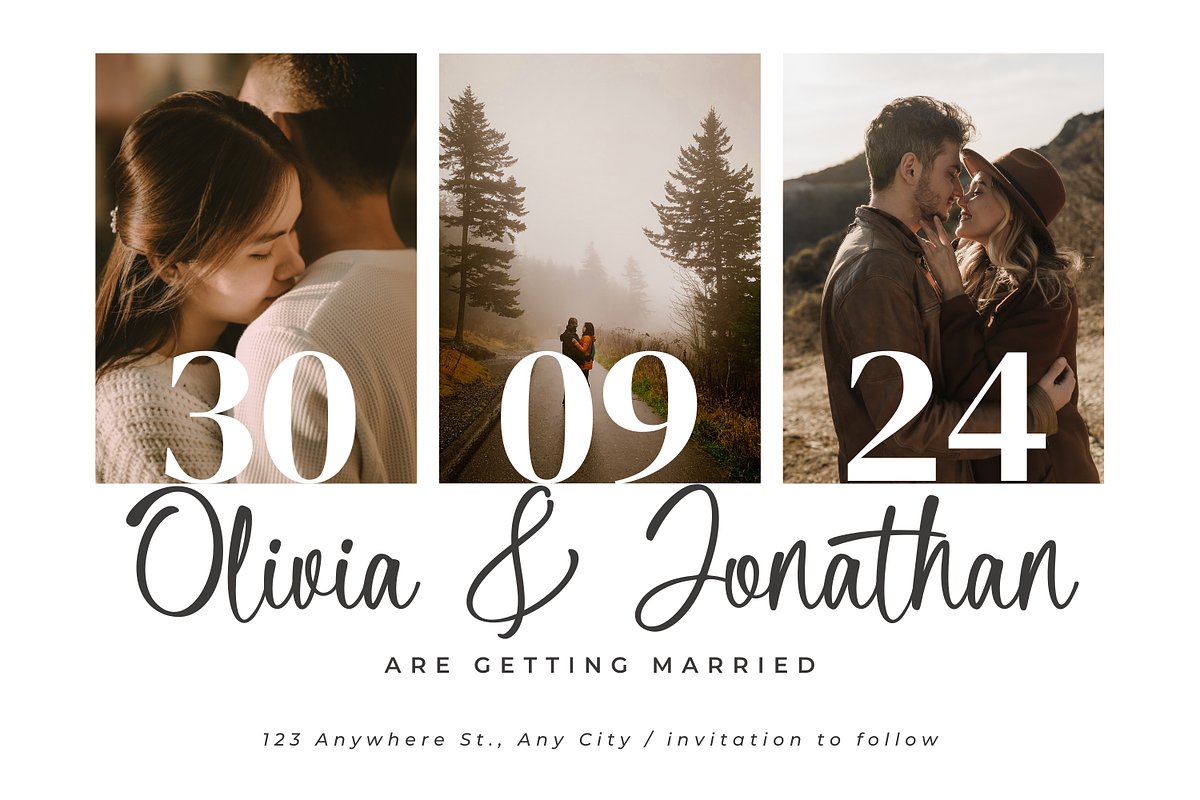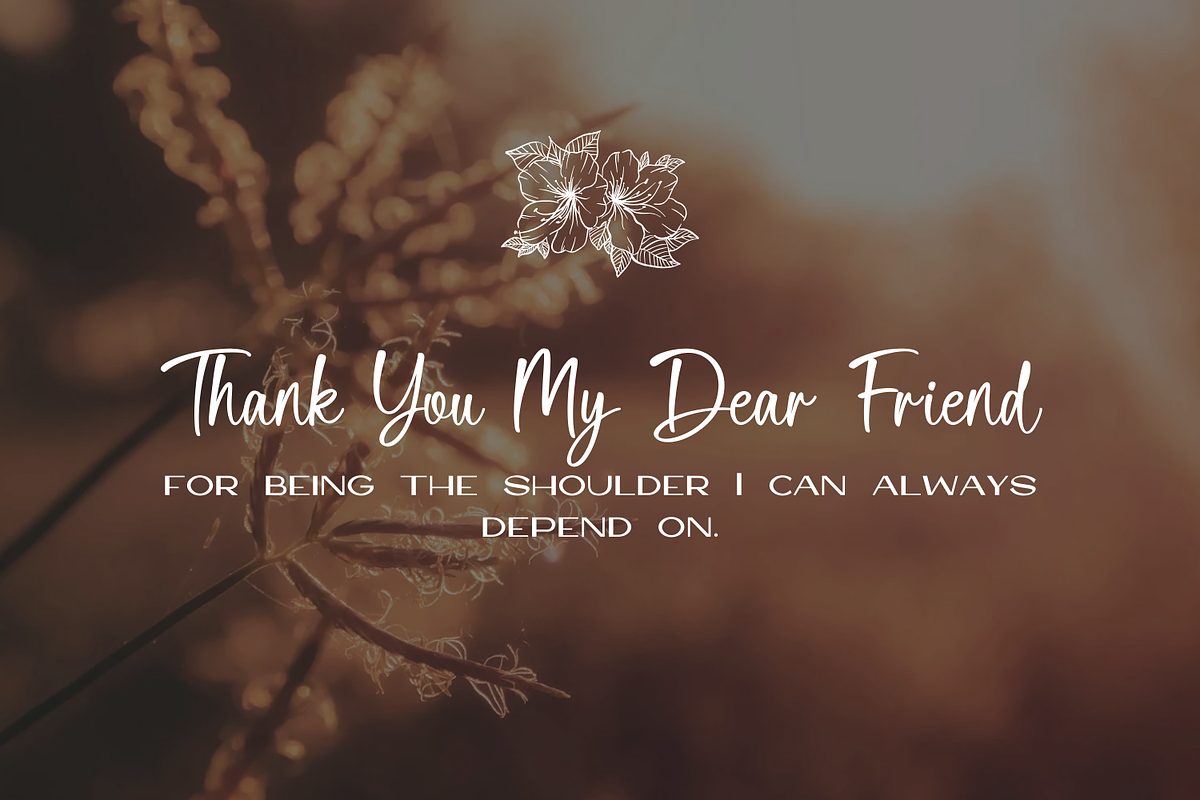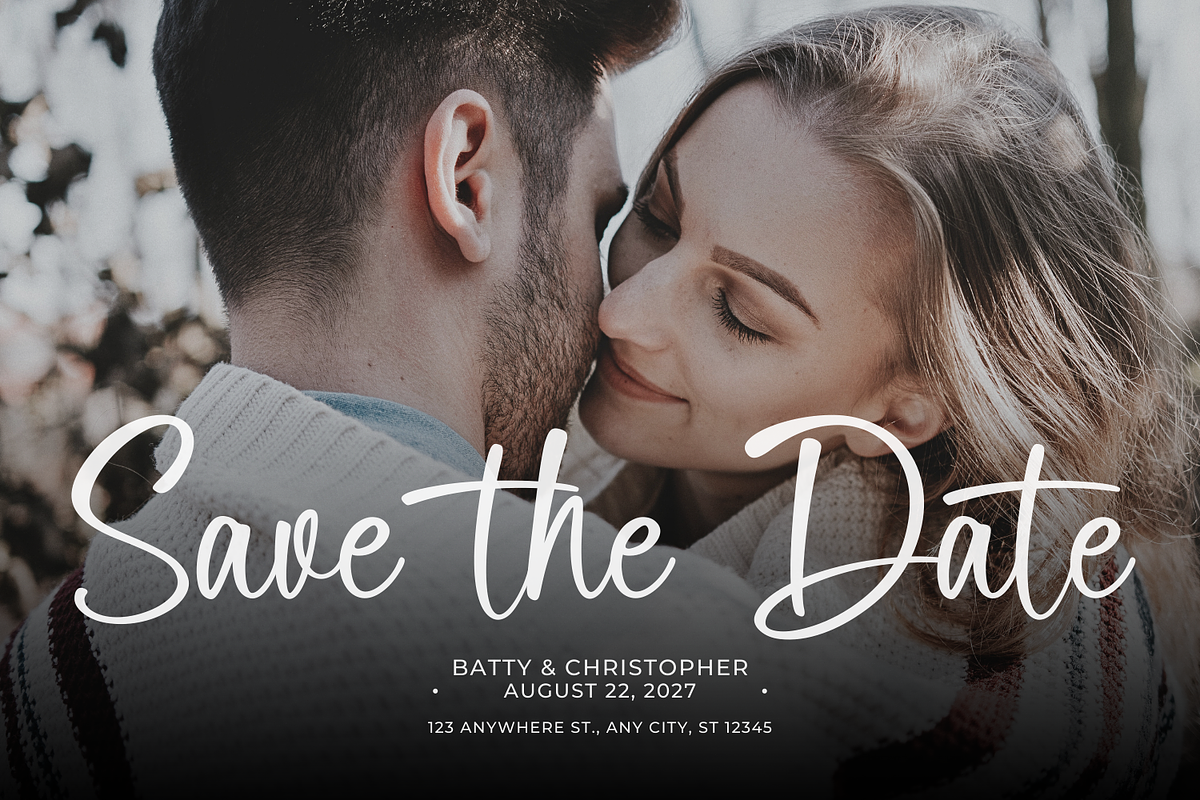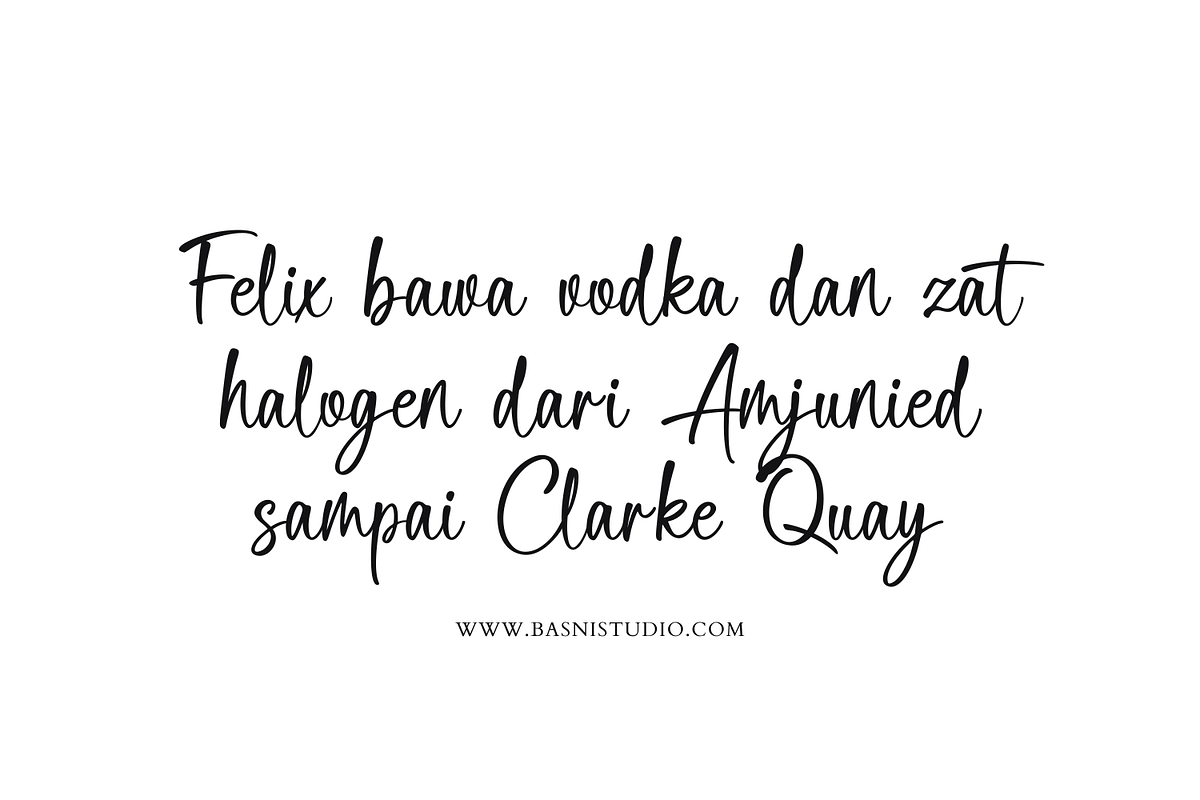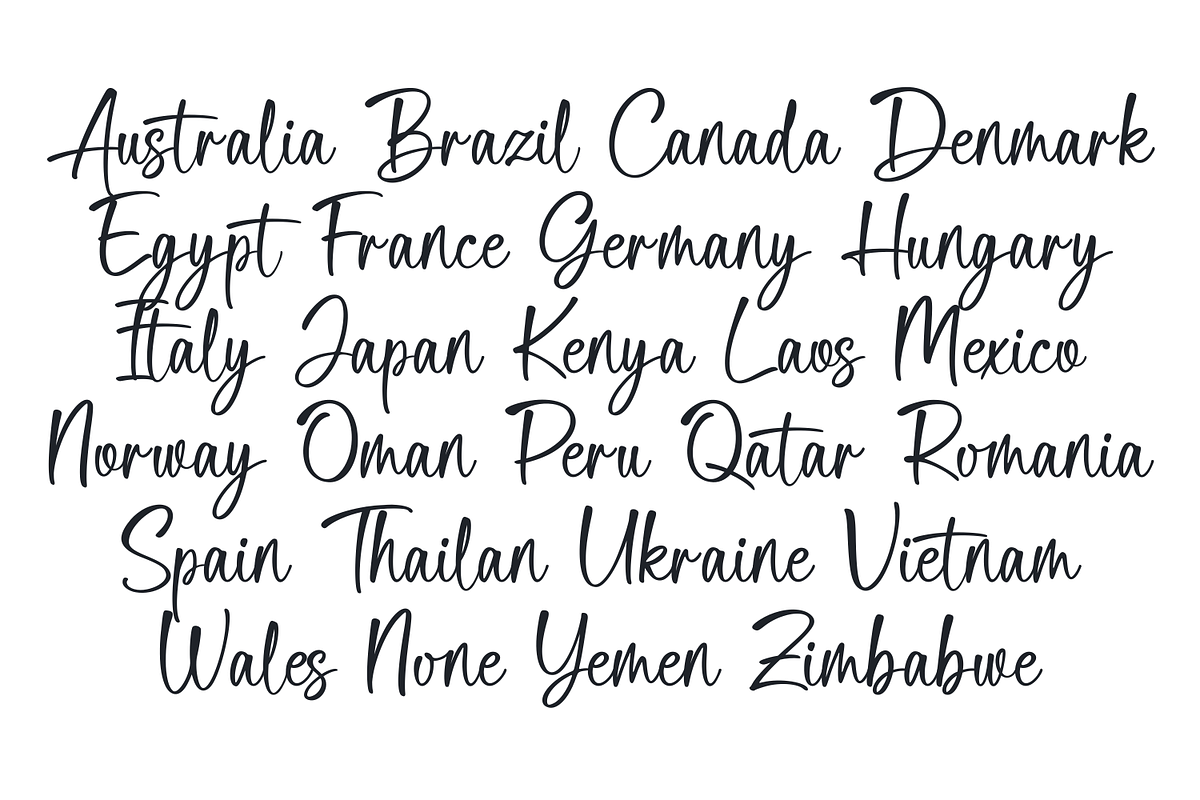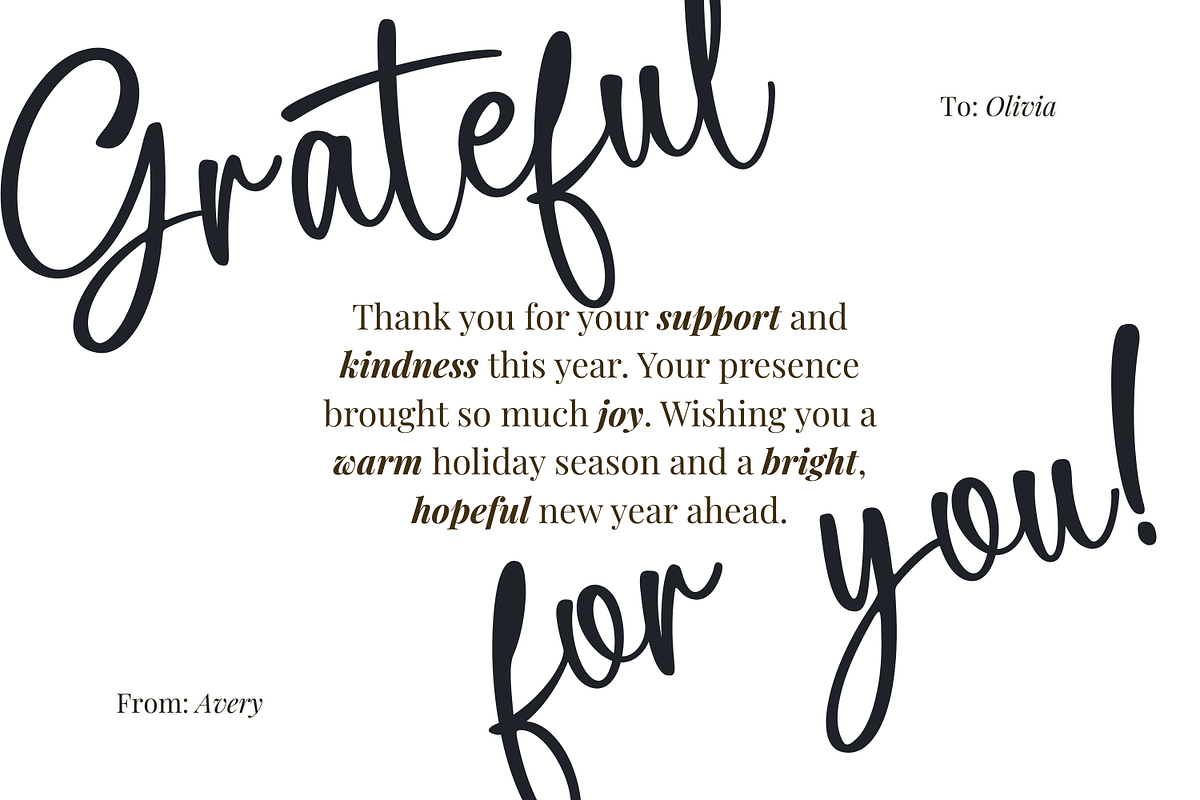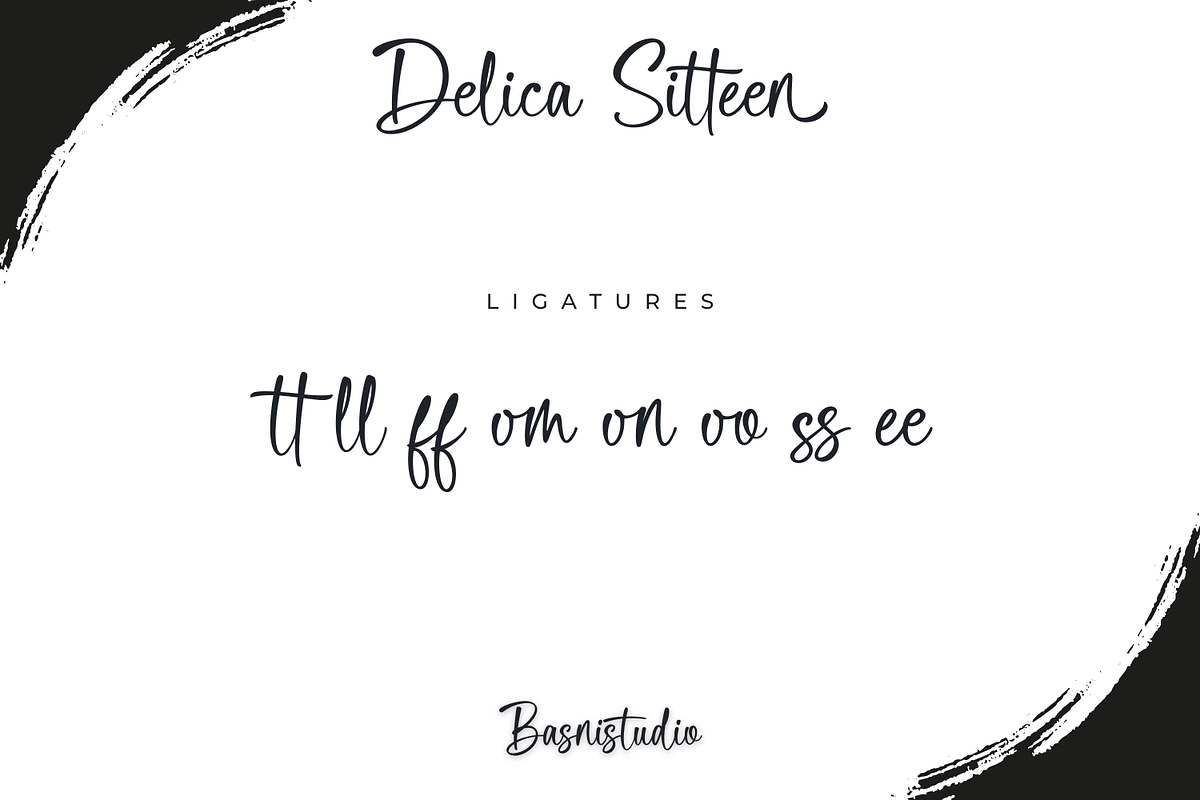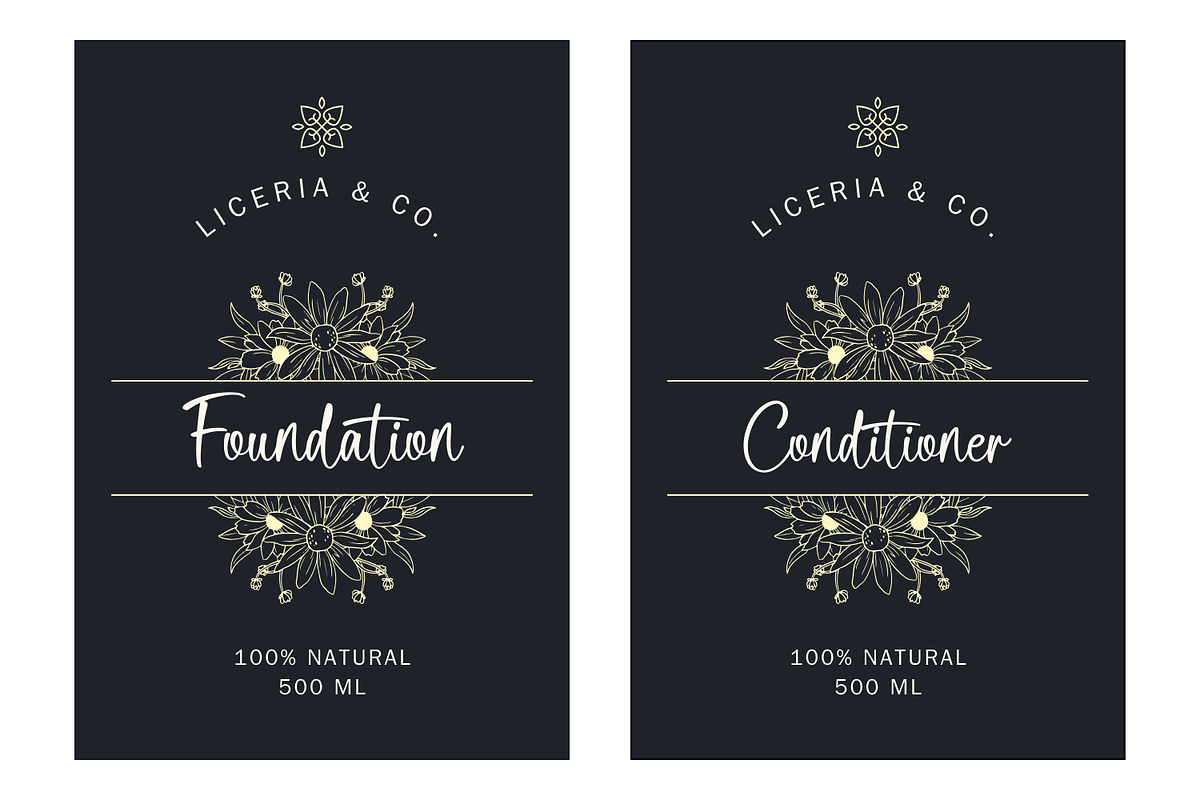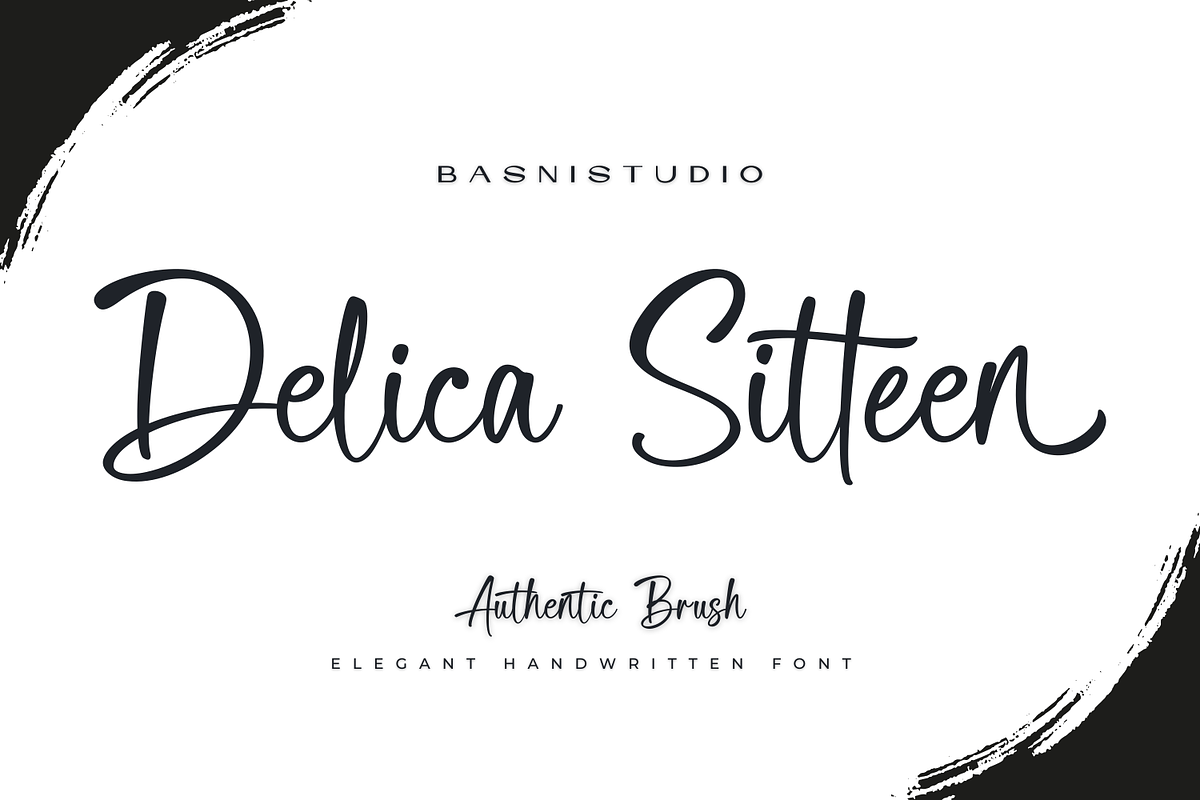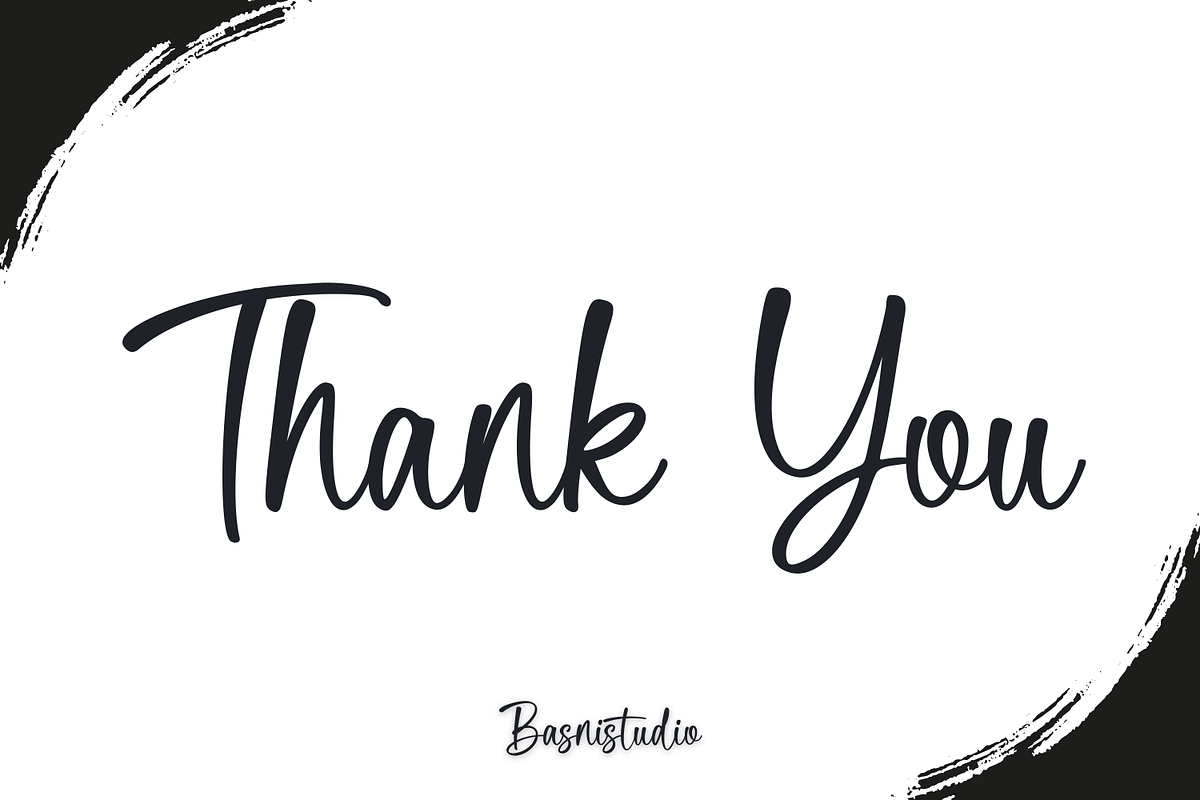
Delica Sitteen Casual Handwritten
Delica Sitteen – Casual Handwritten Font for Branding Handwritting Font Created with real pen strokes for a natural look and casual touch to everything from branding and social media to invitations and packaging.
Natural & Casual – Perfect for tagline, quotes, greeting cards, and more Authentic Handwritten Feel – Created with real pen strokes for a natural look Easy to Use – Works seamlessly with all major design programs
Whether you’re building a powerful brand identity or crafting a standout design,
Delica Sitteen a Casual Handwritting Font Created with real pen strokes for a natural look gives you the creative edge you need.